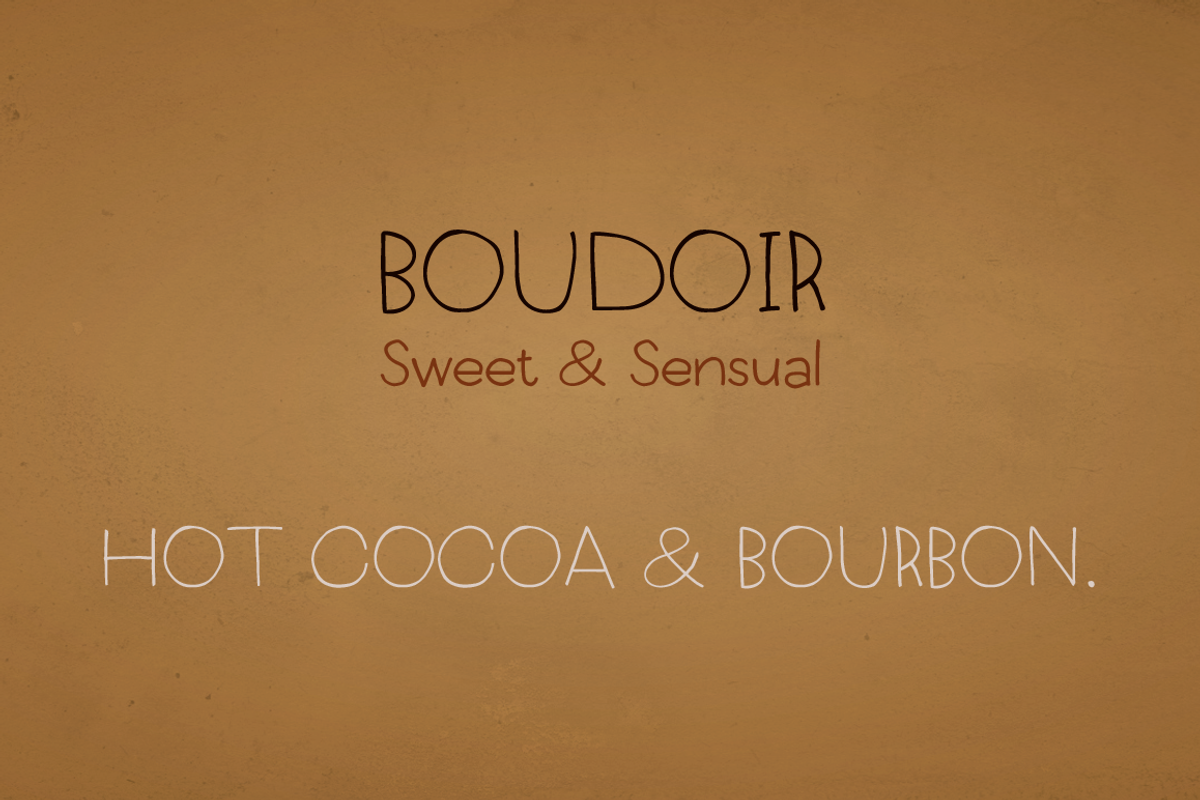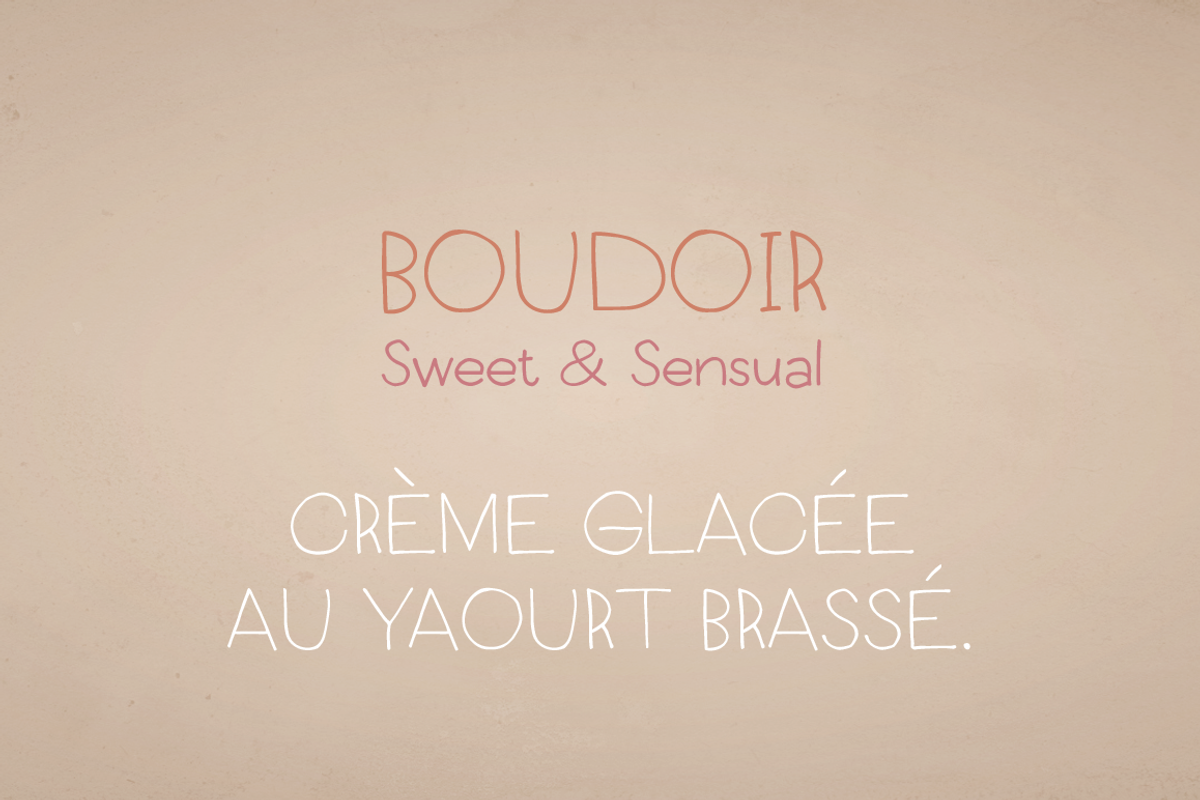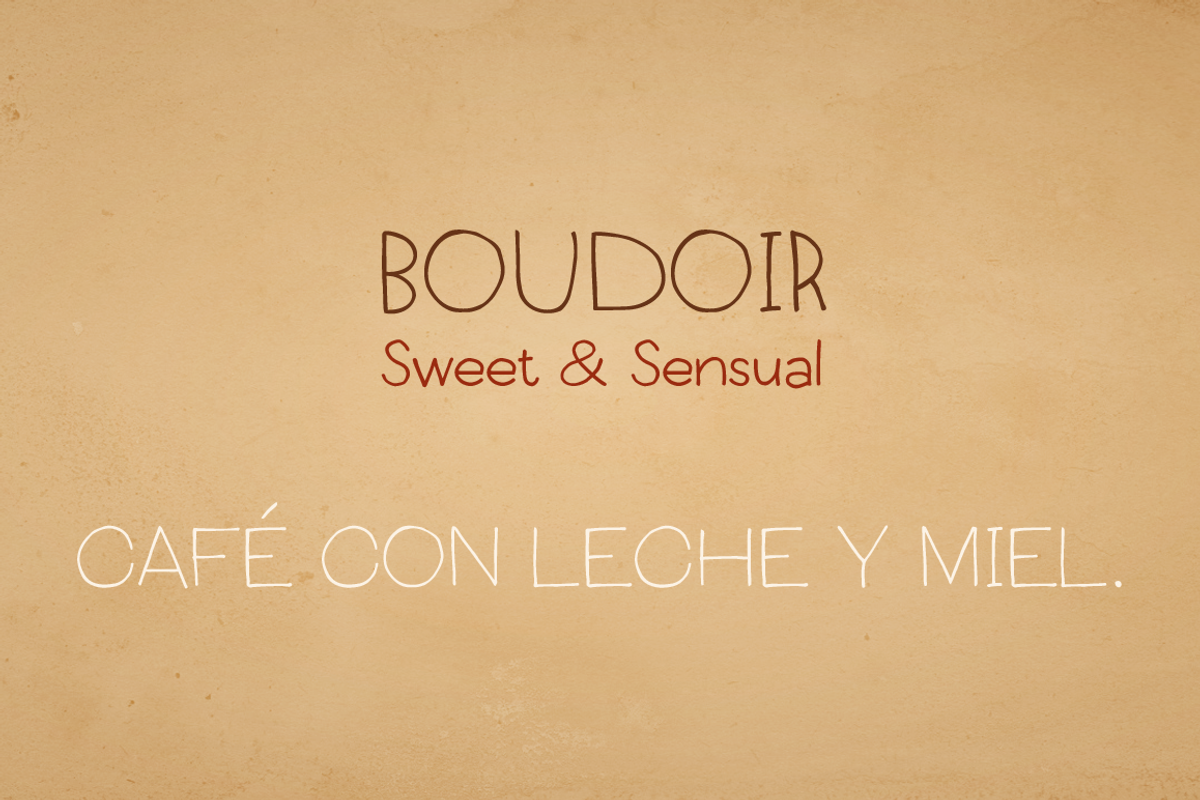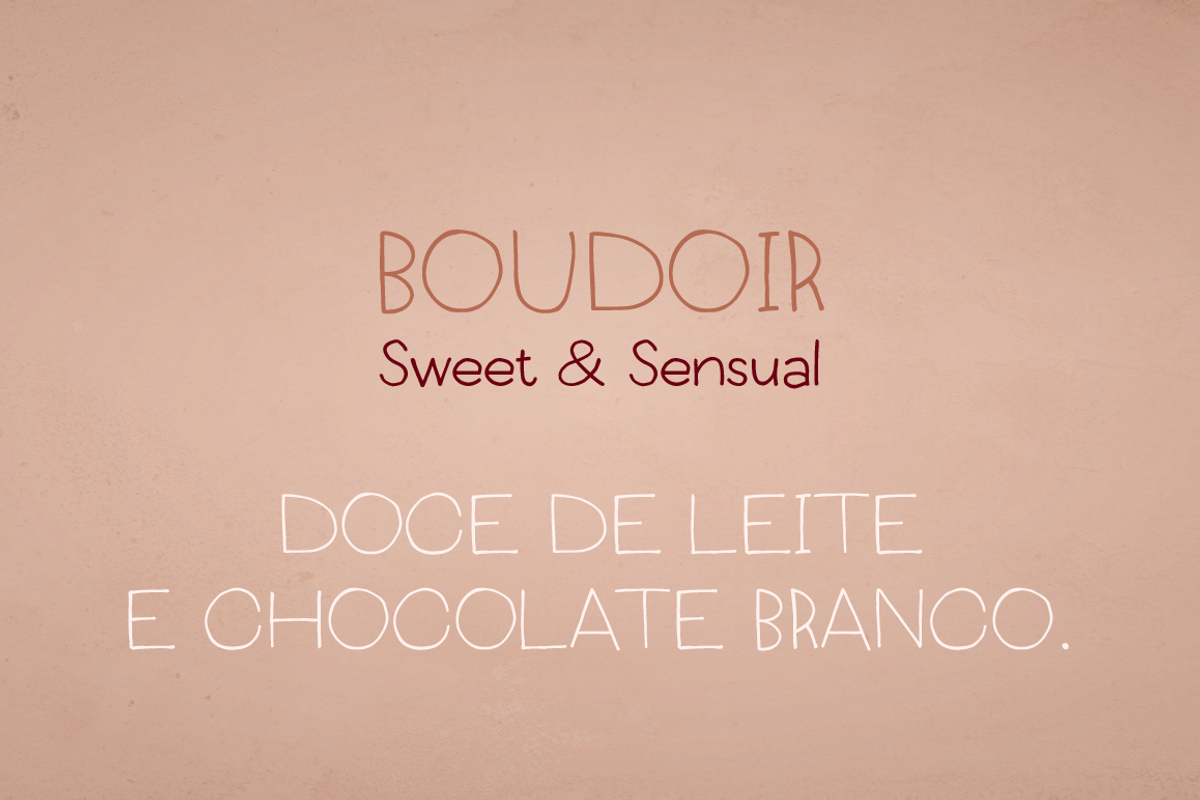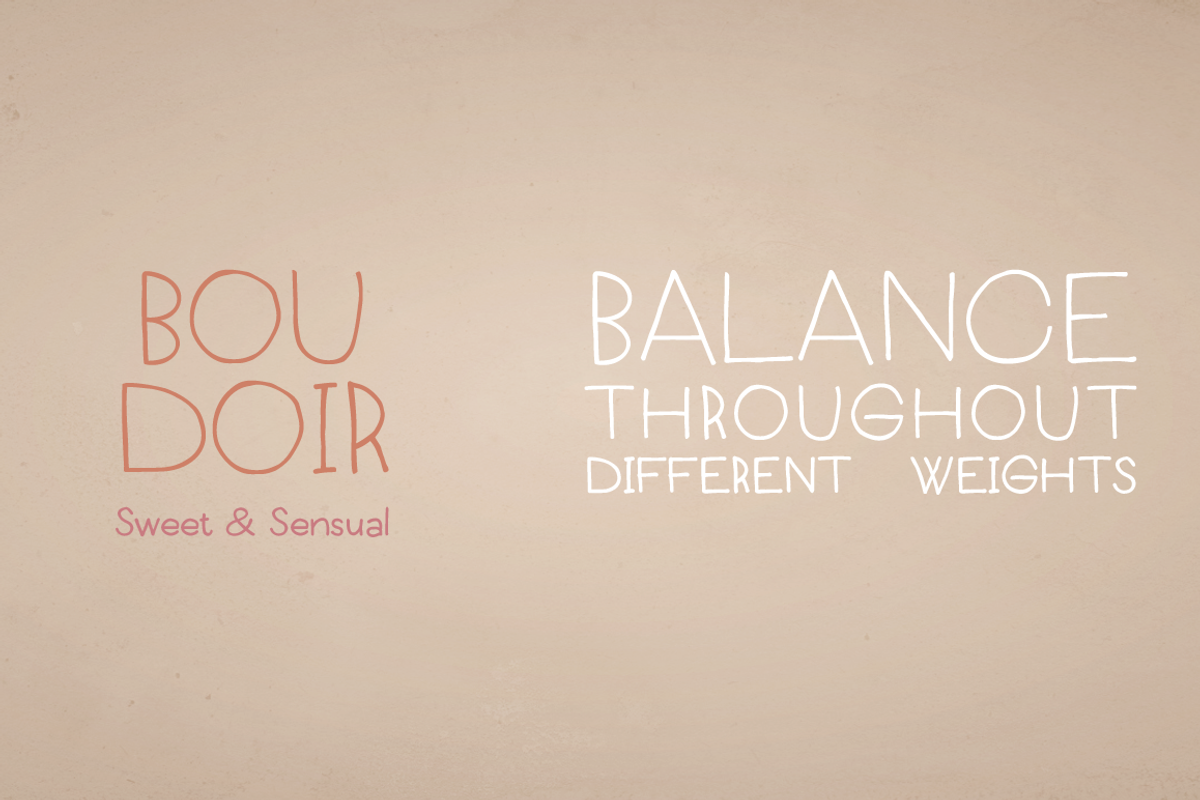
Boudoir Font Family
Boudoir Font Family by Juraj Chrastina is a font selected for branding, posters, packaging, typography.
Why Boudoir Font Family is worth a look
Boudoir Font Family by Juraj Chrastina fits naturally into Branding, posters, packaging, typography.